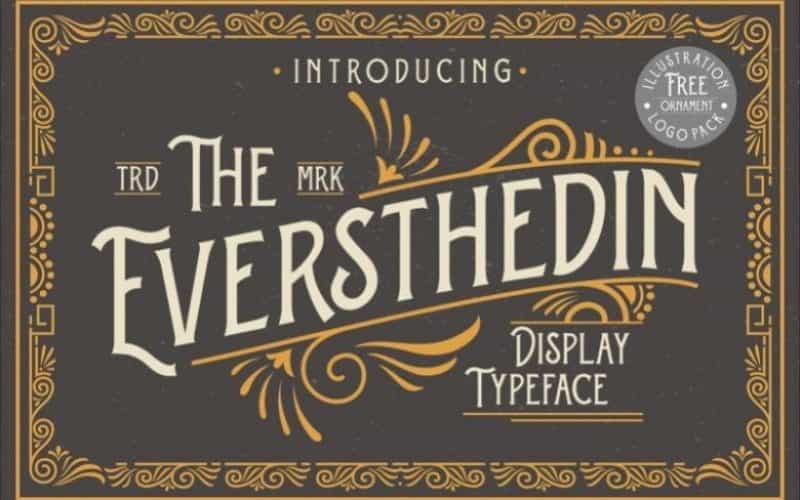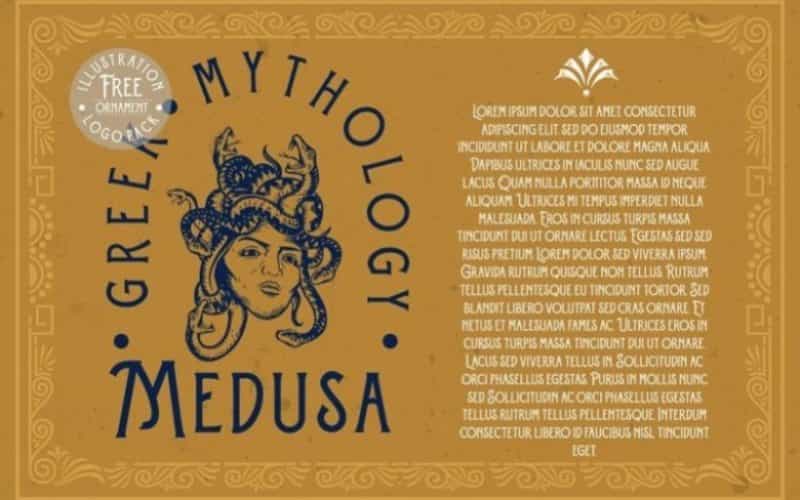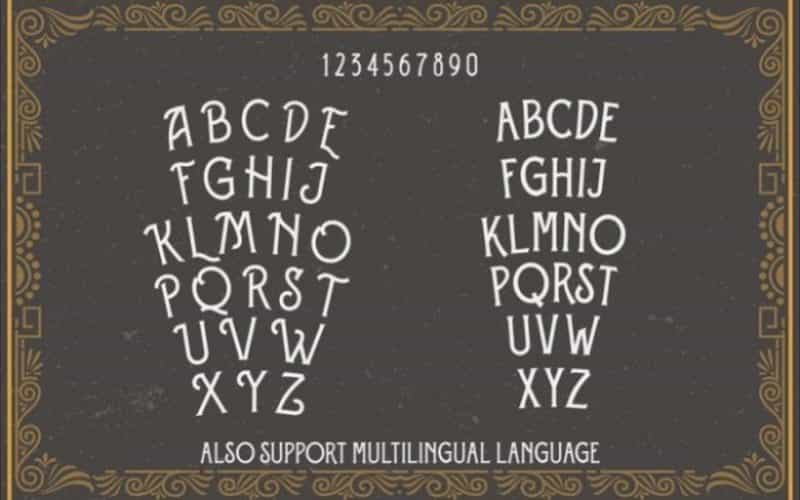
Eversthedin Display Font
Eversthedin is of a classic and formal style, it will be fascinating to make the headlines, packaging design and the vintage logotype like that for a company logo, sport vintage logo or quote typography.